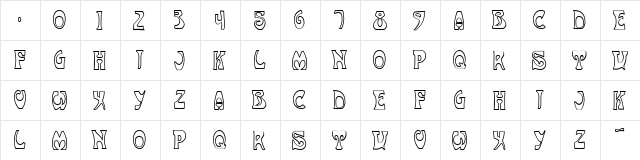
NouveauUneOutline Regular Font Preview
NouveauUneOutline Regular
NouveauUneOutline Regular Font Details
Design Context for NouveauUneOutline Typeface
NouveauUneOutline is built around its visual character rather than neutral utility — its distinctive forms are designed to make an impression at display sizes.
Font Pairing: Pair with a clean neutral sans-serif for body copy to let NouveauUneOutline's character lead without overwhelming the composition.
Pro Tip: Use NouveauUneOutline exclusively at display sizes — it was designed to be seen, not read at length. Let a neutral companion handle body copy.